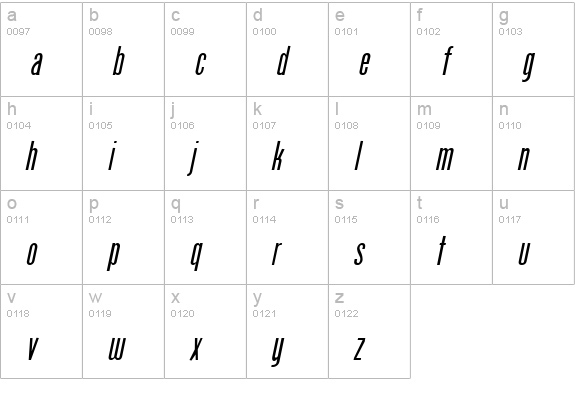
Protege Italic is a distinctive, italic variant in the Protege typeface family \xE2\x80\x94 well suited to design and typography projects.
Protege Italic font exudes elegance and sophistication with its sleek and stylish design. This versatile typeface is perfect for adding a touch of class to any project, whether it be a wedding invitation, business card, or website. The italicized letters flow gracefully, creating a sense of movement and modernity. Best of all, Protege Italic font is completely free to download at FontsMarket.com. This means you can elevate your designs without breaking the bank. Don't miss out on this opportunity to enhance your creations with the timeless beauty of Protege Italic font. Download it today and see the difference it can make in your work!